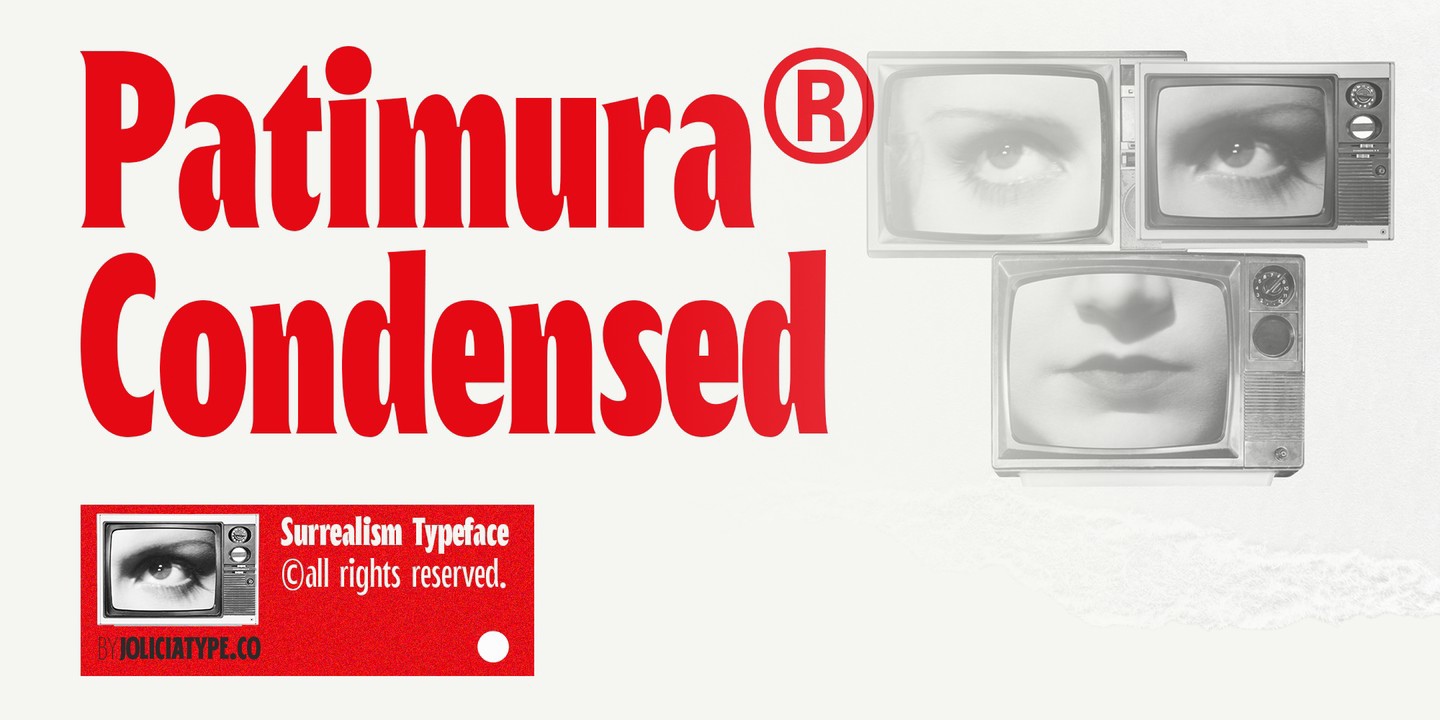
Patimura Condensed Font
Patimura Condensed Font is perfect for heroic poster designs, patriotic campaign materials, historical commemorative signage, independence celebration graphics, national monument displays, heroic military branding, freedom movement publications, patriotic event materials, revolutionary museum exhibits, and inspiring leadership communications.
Patimura Condensed Font is exciting because it embodies the courageous spirit and unwavering determination of heroic leadership, creating a typeface that represents strength, patriotism, and the noble fight for freedom and independence. This font brings heroic gravitas and patriotic strength to any project, making it ideal for organizations that want to convey courage, national pride, and the inspiring legacy of freedom fighters. Its bold condensed character and heroic presence create an atmosphere of patriotic honor that resonates with audiences who value courage, sacrifice, and national heritage.
Patimura Condensed Font family includes light, regular, medium, bold, and black weights, along with extended and ultra-condensed variations, providing designers with comprehensive tools for creating powerful patriotic typography and heroic brand experiences that honor national heroes.
This distinguished heroic typeface combines patriotic design principles with contemporary functionality, making Patimura Condensed Font Free Download an exceptional choice for projects celebrating national heritage and heroic leadership. The font's powerfully crafted letterforms feature condensed strength and patriotic styling that reflect the courage and determination of independence heroes and freedom fighters.
Whether you're designing national celebration materials, historical museum exhibits, or patriotic organization branding, Patimura Condensed Font delivers unmatched heroic authenticity and patriotic appeal. The font excels in both large-scale commemorative applications and detailed historical documentation where national pride and heroic legacy create inspiring educational experiences.
Patriotic organizations choose Patimura Condensed Font for its ability to instantly communicate courage and national pride while honoring the memory of heroic leaders who fought for freedom and independence. The font's heroic character makes it particularly effective for military memorials, national museums, and patriotic institutions.
Each character reflects the unwavering strength of heroic determination, featuring bold construction and patriotic proportions that create typography as inspiring and memorable as the courage of national heroes and freedom fighters.